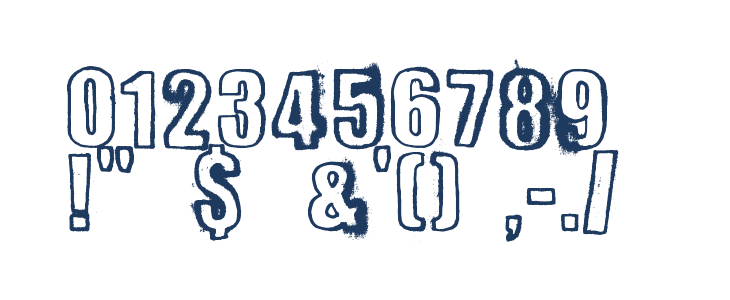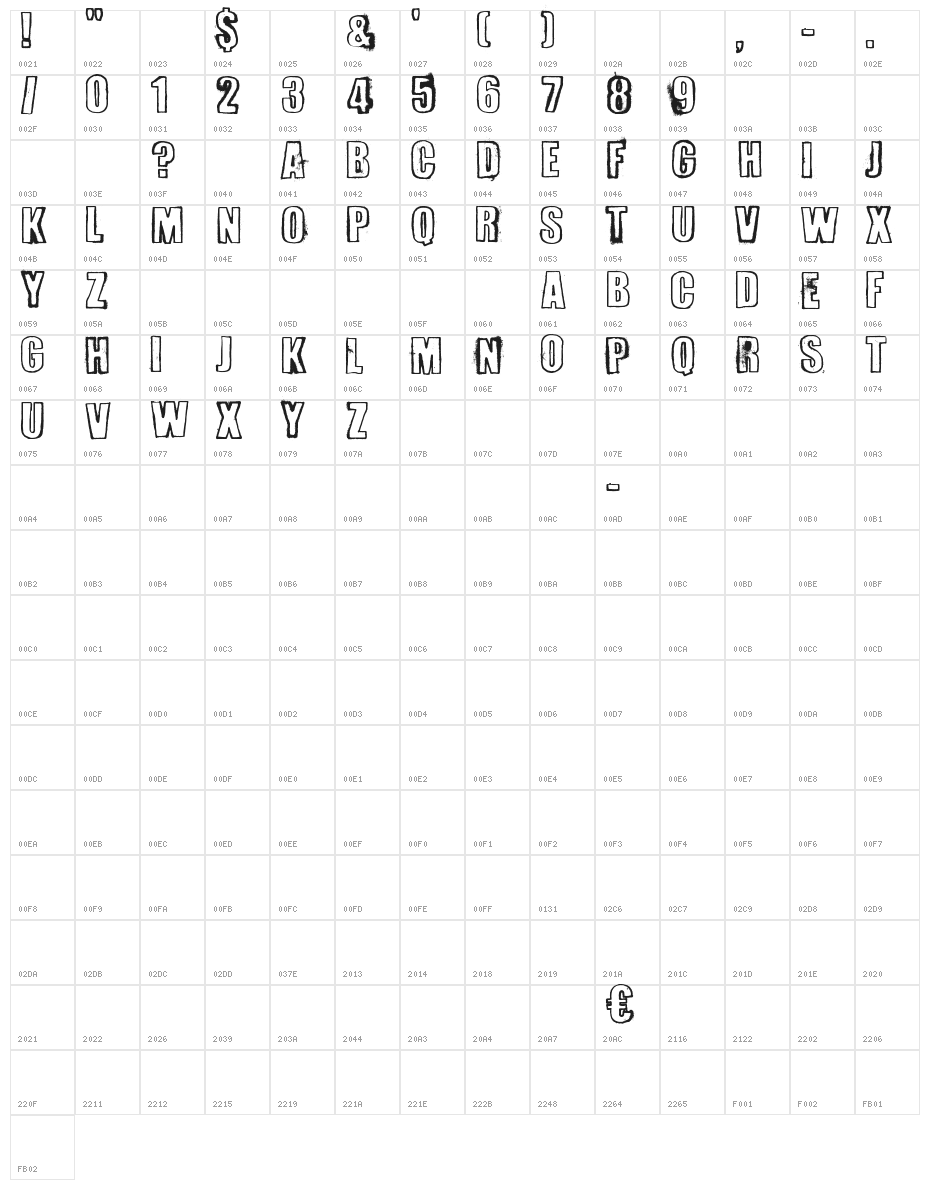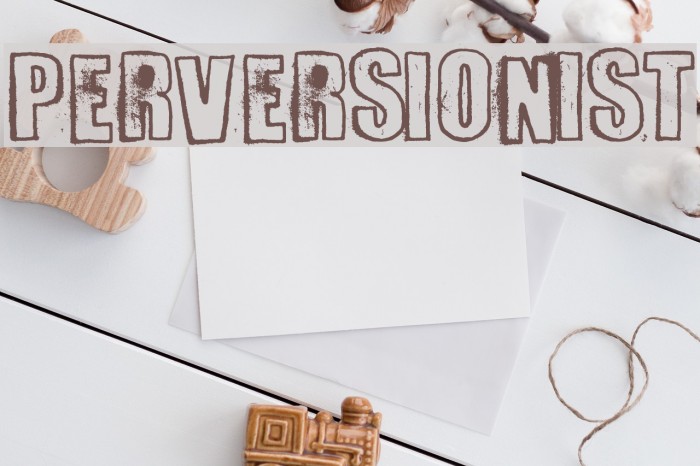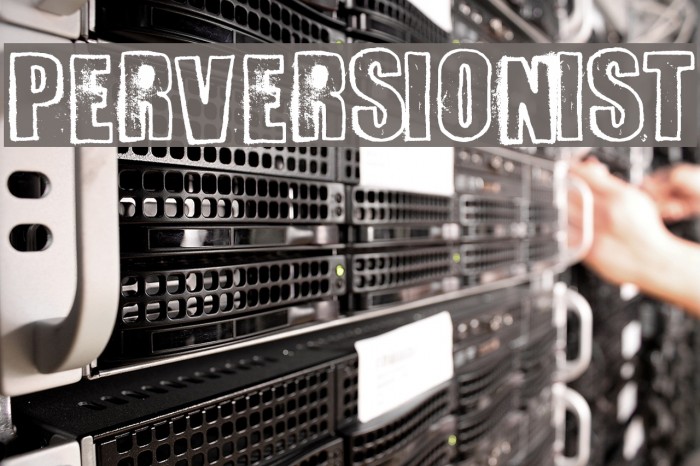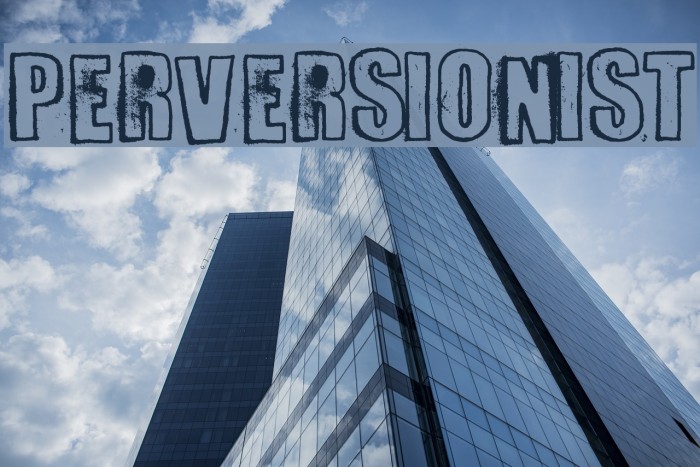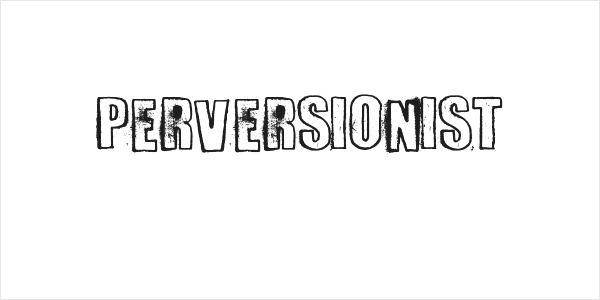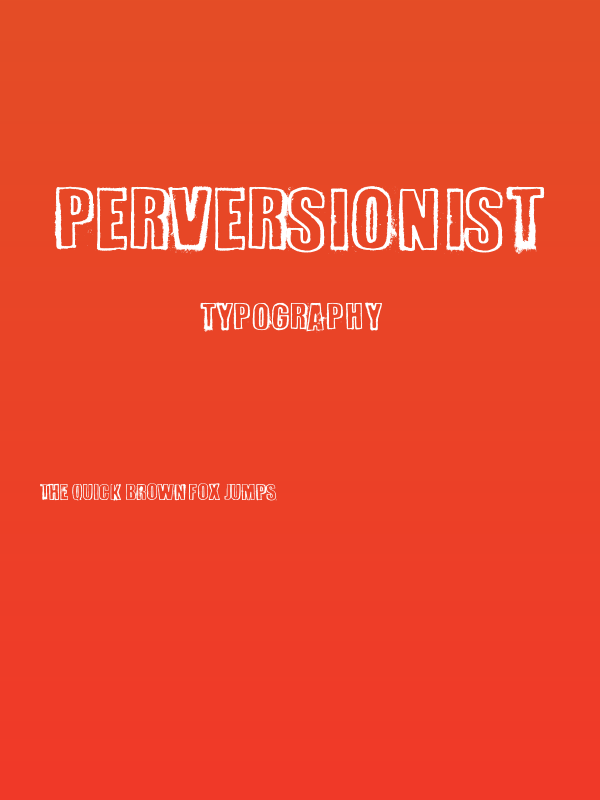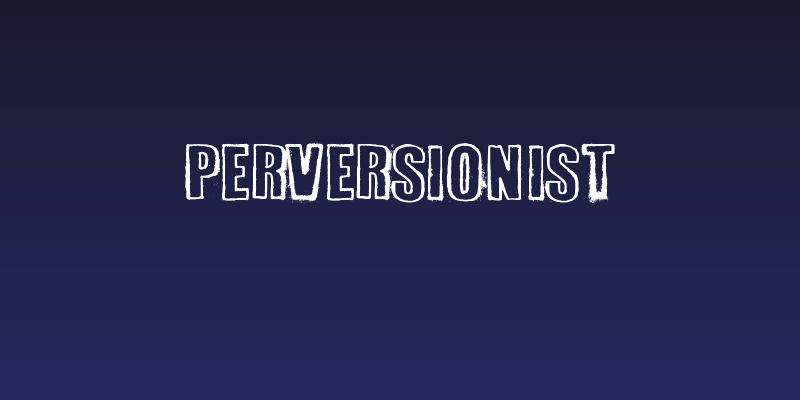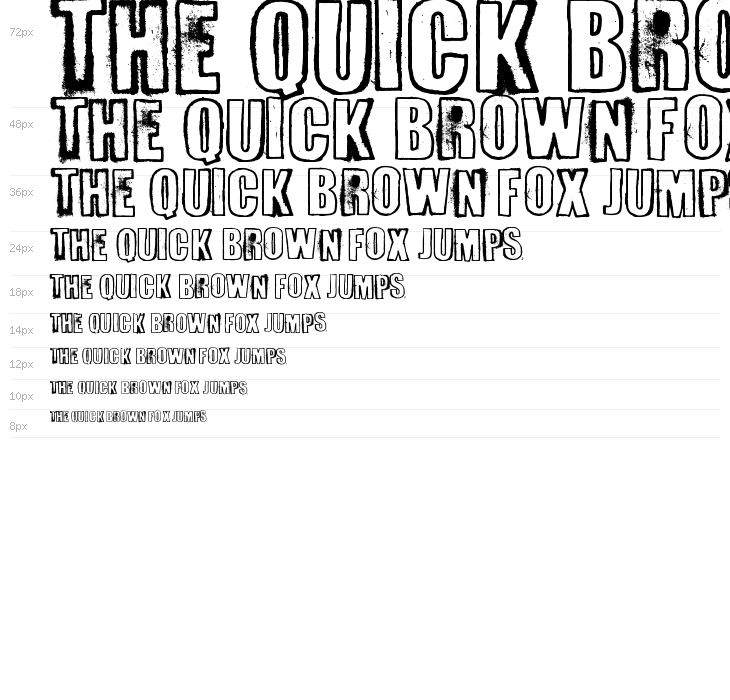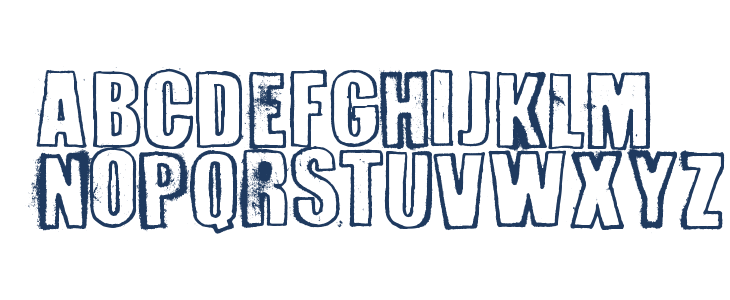
Perversionist Font
Perversionist Description
This font features a bold, distressed style with a vintage, grunge aesthetic. The characters are uppercase and have a rough, textured appearance, giving them a worn, industrial feel. The boldness of the letters is accentuated by the uneven edges and the slightly faded ink effect, which adds to the overall rugged look. The numbers and special characters follow the same design, maintaining consistency throughout the set. This font is ideal for projects that require a strong, impactful visual presence with a touch of nostalgia and edginess.
| Overall Style | Vintage, Grunge |
| Proposed Projects | Ideal for posters, album covers, branding for edgy products, or any design needing a strong, vintage look. |